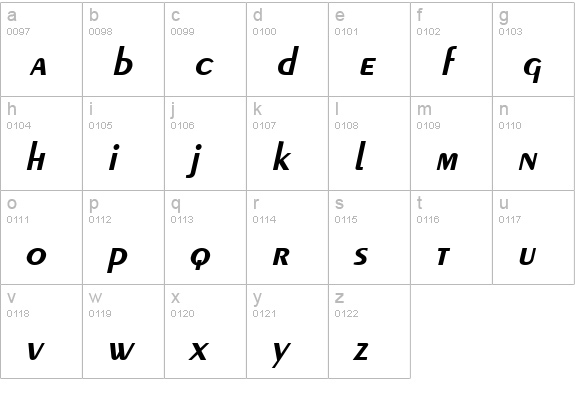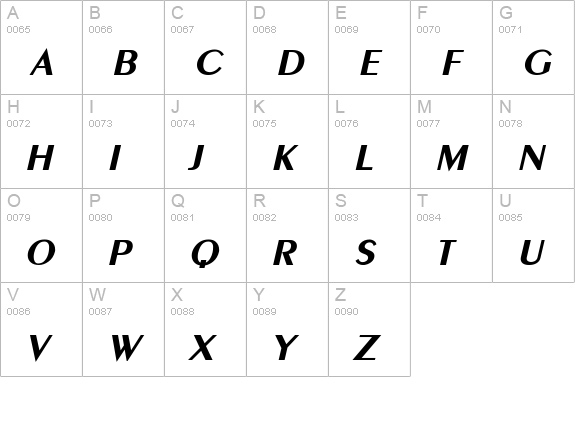
Pare BoldItalic Font Details
Pare BoldItalic font is a stunning and versatile typeface that combines boldness with a touch of elegance. With its unique mix of thick and slanted strokes, this font exudes a strong and confident personality, making it perfect for eye-catching headlines, titles, and branding projects. The bold and italic design of Pare BoldItalic font adds a dynamic and contemporary feel to any design, making it ideal for modern websites, advertisements, and packaging. Its boldness grabs attention, while the italic styling adds a touch of sophistication and flair. One of the best things about Pare BoldItalic font is that it is free. Yes, you read that right! This incredible font is freely available to download at FontsMarket.com. Whether you're a professional designer looking for a versatile font to add to your collection or a beginner searching for an eye-catching font to elevate your projects, Pare BoldItalic font is the perfect choice. With its wide range of language support and extensive glyph set, Pare BoldItalic font offers endless possibilities for creative expression. It brings a sense of uniqueness and originality to any project, making it stand out from the crowd. So why wait? Don't miss the opportunity to enhance your designs with the striking beauty of Pare BoldItalic font. Download it for free today at FontsMarket.com and unlock a world of design possibilities.